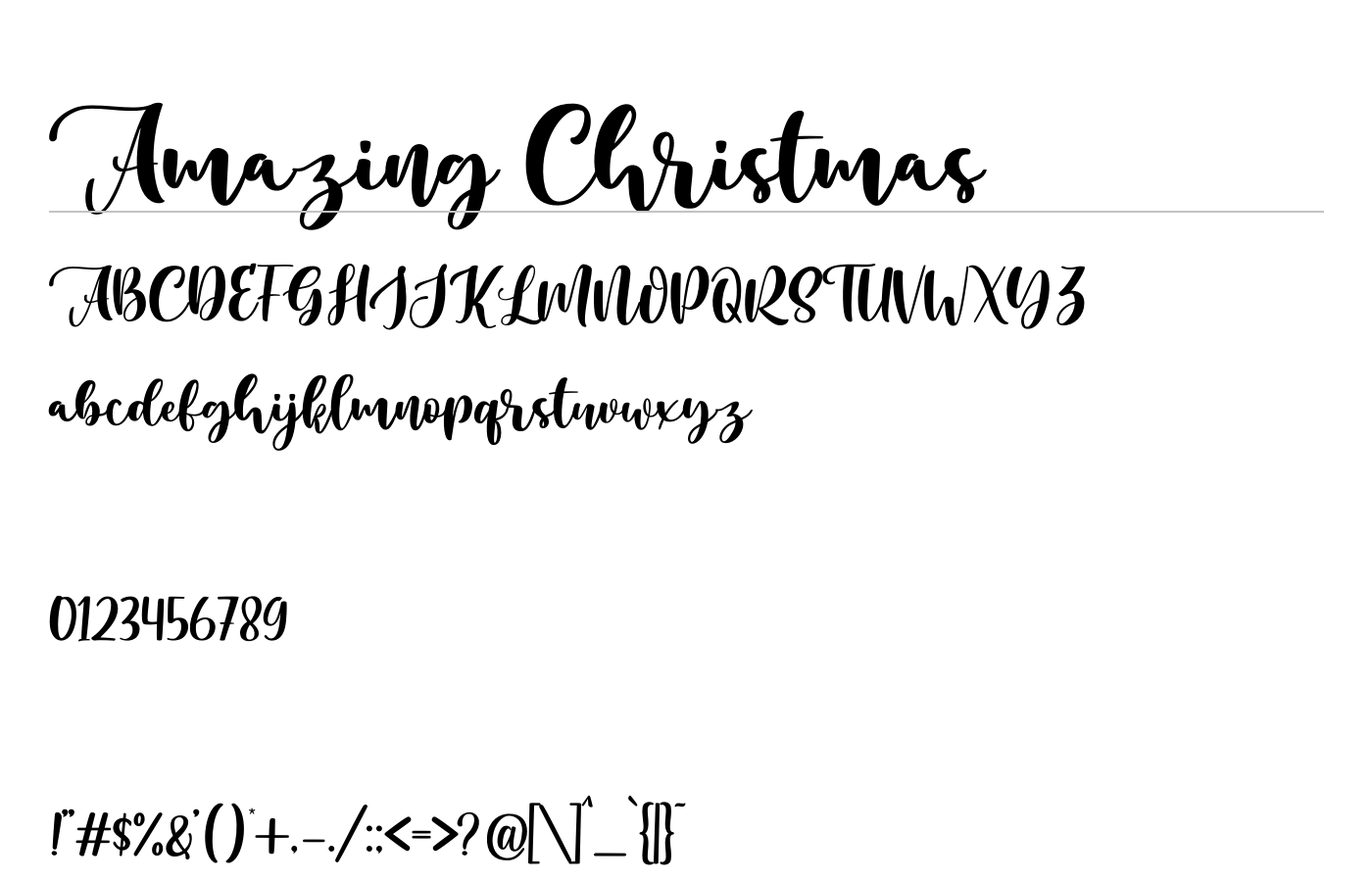
Amazing Christmas Font is a lively and elegant script font with flowing, bold strokes and a playful, festive charm. Its smooth, hand-lettered style with high contrast and stylish uppercase and lowercase letters makes it perfect for holiday greetings, invitations, and seasonal branding where a warm, joyful, and creative vibe is desired. This font works best in headlines, logos, and decorative text to add a personal, celebratory touch.
Amazing Christmas Font
About Amazing Christmas Font
| Font family | Amazing Christmas Font |
| Designer | Andri Ardianto & Madatype Studio |